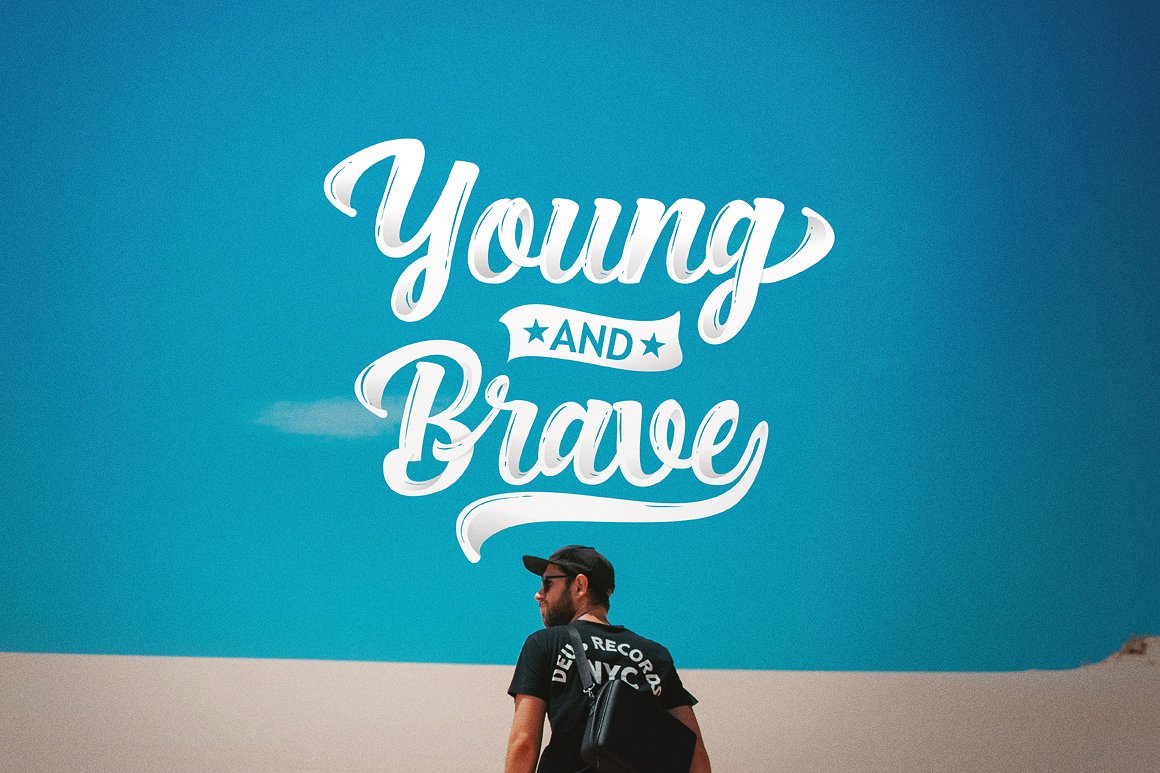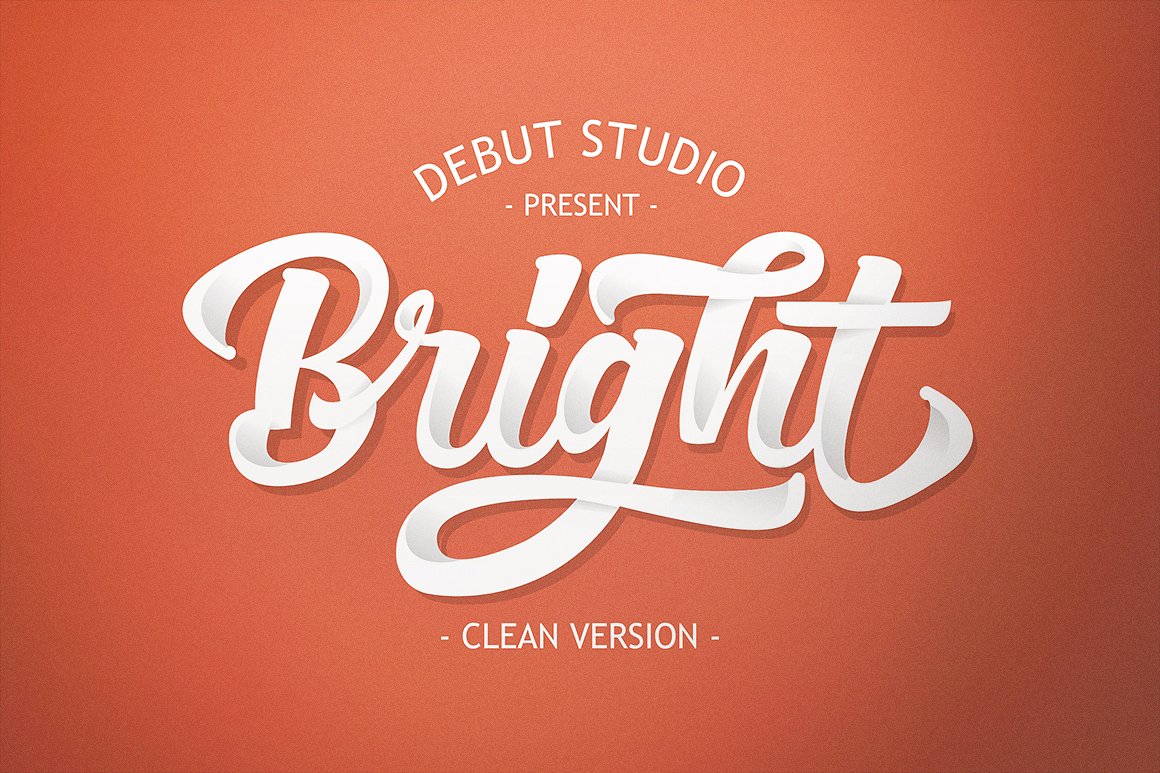
Bright Script
Bright Script Font
Introducing Bright with 3 font styles. This is the latest Debut Studio font that will help you in designing. If you are a designer who likes other Logotype, brands, and other design needs that use bold, then you should have this font.